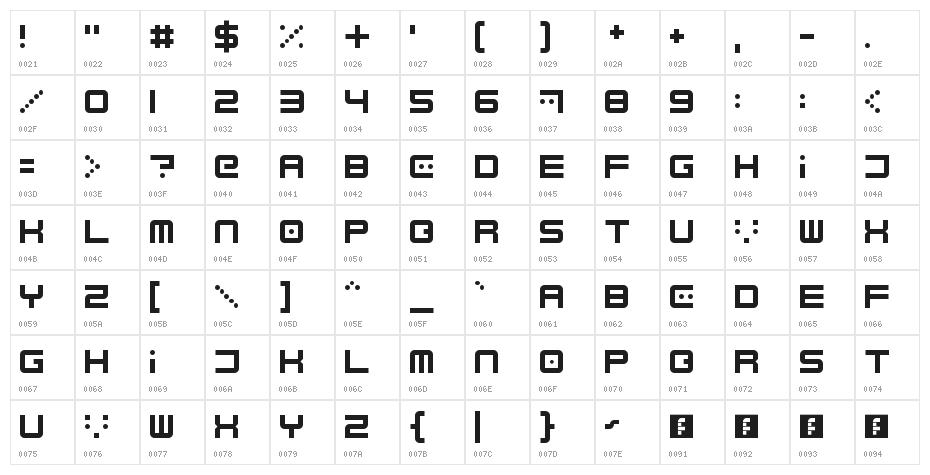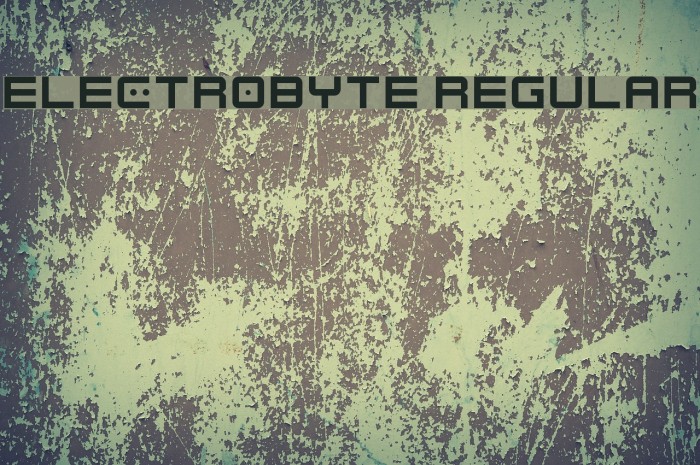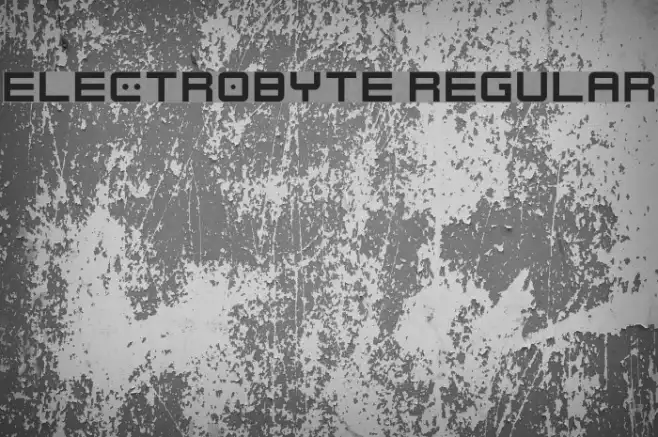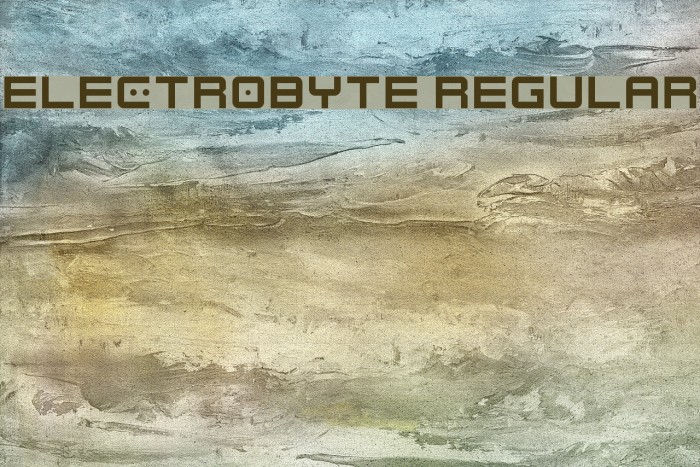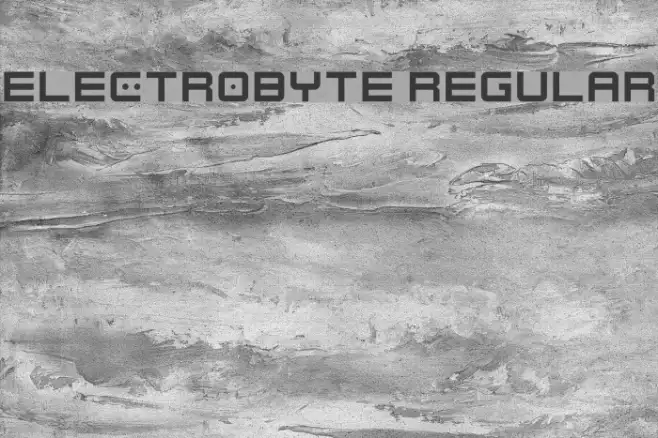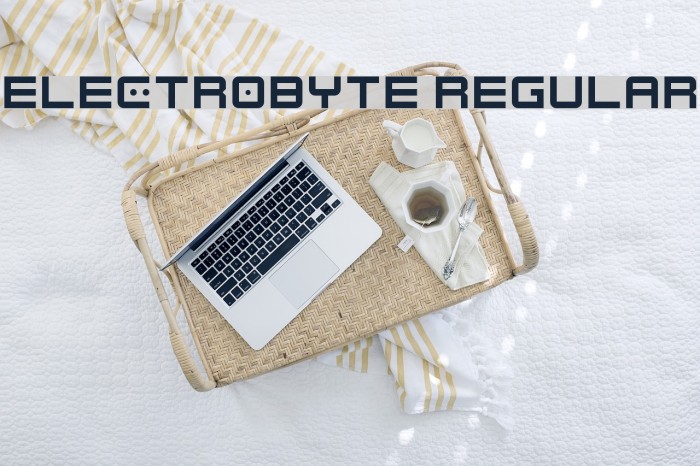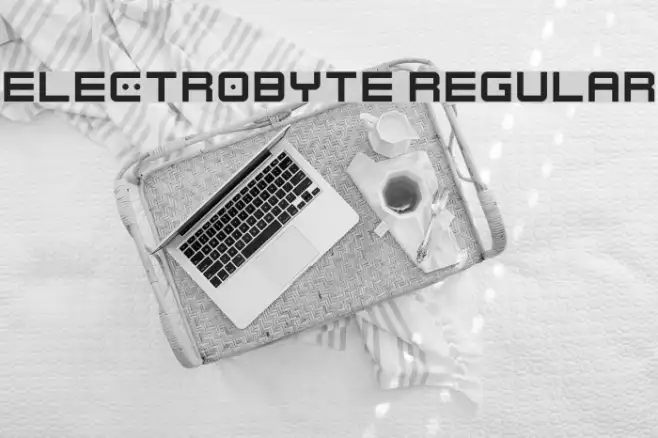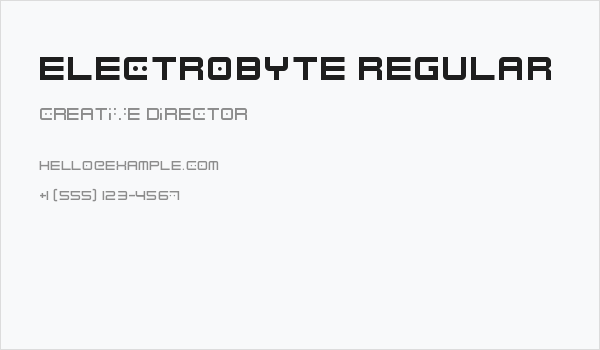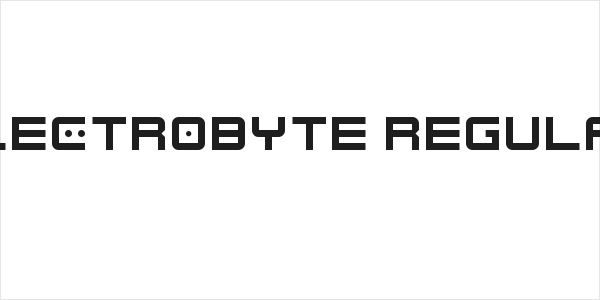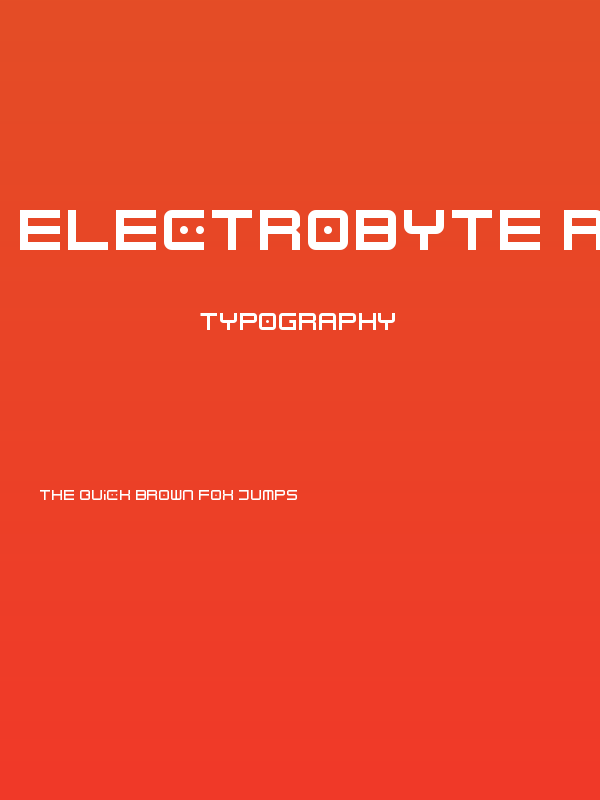
Electrobyte Regular Font
Electrobyte Regular Description
This font features a futuristic and digital aesthetic, characterized by its geometric shapes and clean lines. The characters are constructed with a consistent stroke width, giving it a monospaced appearance. The design incorporates unique elements such as dots and lines within the letters, enhancing its tech-inspired look. The uppercase and lowercase letters maintain a uniform style, while the numerals and special characters complement the overall design. This font is ideal for projects that require a modern and technological feel.
| Proposed Projects | Ideal for technology branding, digital interfaces, video game graphics, and sci-fi themed projects. |